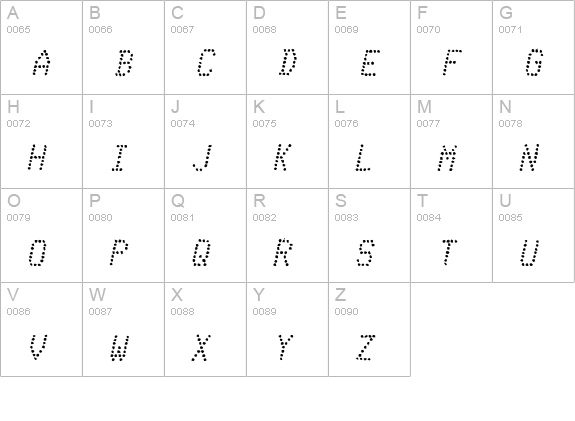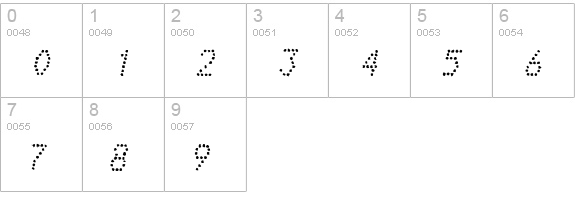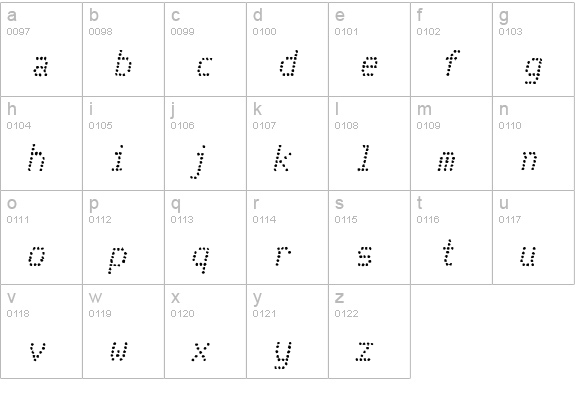
Telidon Ink Italic Font Details
Telidon Ink Italic is a distinctive, italic variant in the Telidon typeface family \xE2\x80\x94 well suited to design and typography projects.
Telidon Ink Italic is a stylish and elegant font that adds a touch of sophistication to any design project. The flowing italic style of this font gives it a unique and modern look, making it perfect for a wide range of applications. Whether you're designing a logo, creating a poster, or working on a branding project, Telidon Ink Italic will help you stand out from the crowd. One of the best things about Telidon Ink Italic is that it is available for free download at FontsMarket.com. This means that you can easily access this beautiful font without having to worry about any additional costs. With its sleek and professional design, Telidon Ink Italic is sure to become a go-to font for all your creative endeavors. Don't miss out on the opportunity to enhance your designs with the elegance of Telidon Ink Italic. Download this stunning font for free today and take your projects to the next level.